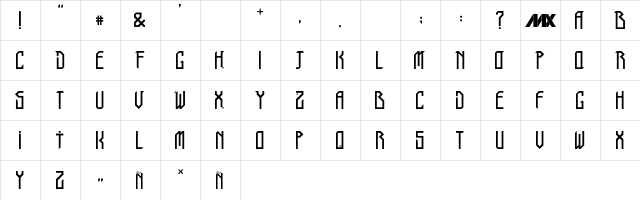
Tribo Regular
Design Context for Tribo Typeface
Tribo is a composed and adaptable typeface that performs quietly and consistently across a wide range of design contexts.